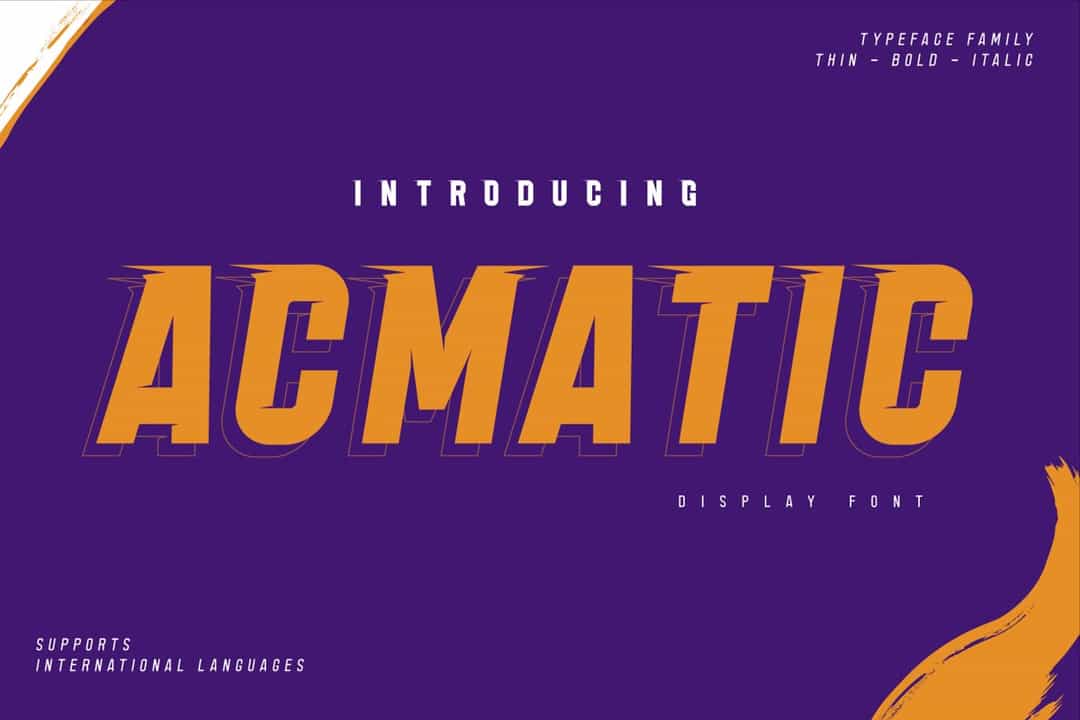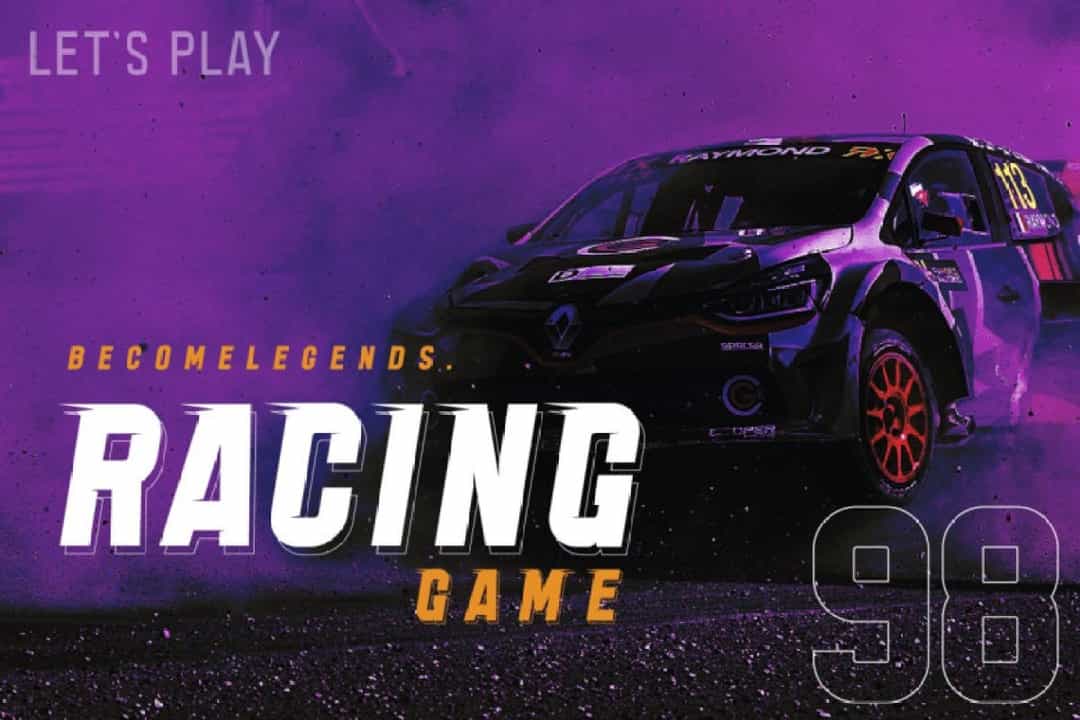
Acmatic Display Font is designed for use in strong and provocative projects, including sports events banners, branding posters, movies, books, movie titles and many other. This font can also be used for texts in the image like in the case of sports logos among others.